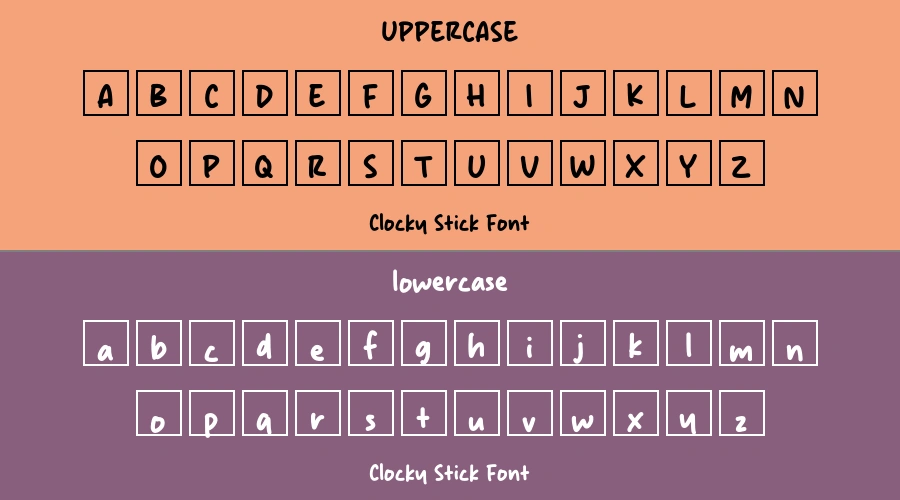
About Clocky Stick Font
Clocky Stick Font represents a sophisticated approach to type design, balancing graceful curves with accuracy. Perfect for event branding, this font family showcases impressive versatility and creative potential throughout its character set. Designers appreciate its versatility and reliability.
Designers will appreciate nuanced touches including tapered strokes and terminal forms, adding sophistication to any project. These features become apparent in brochures, where performance matters most. The careful treatment of contrast level and design heritage ensures optimal performance.